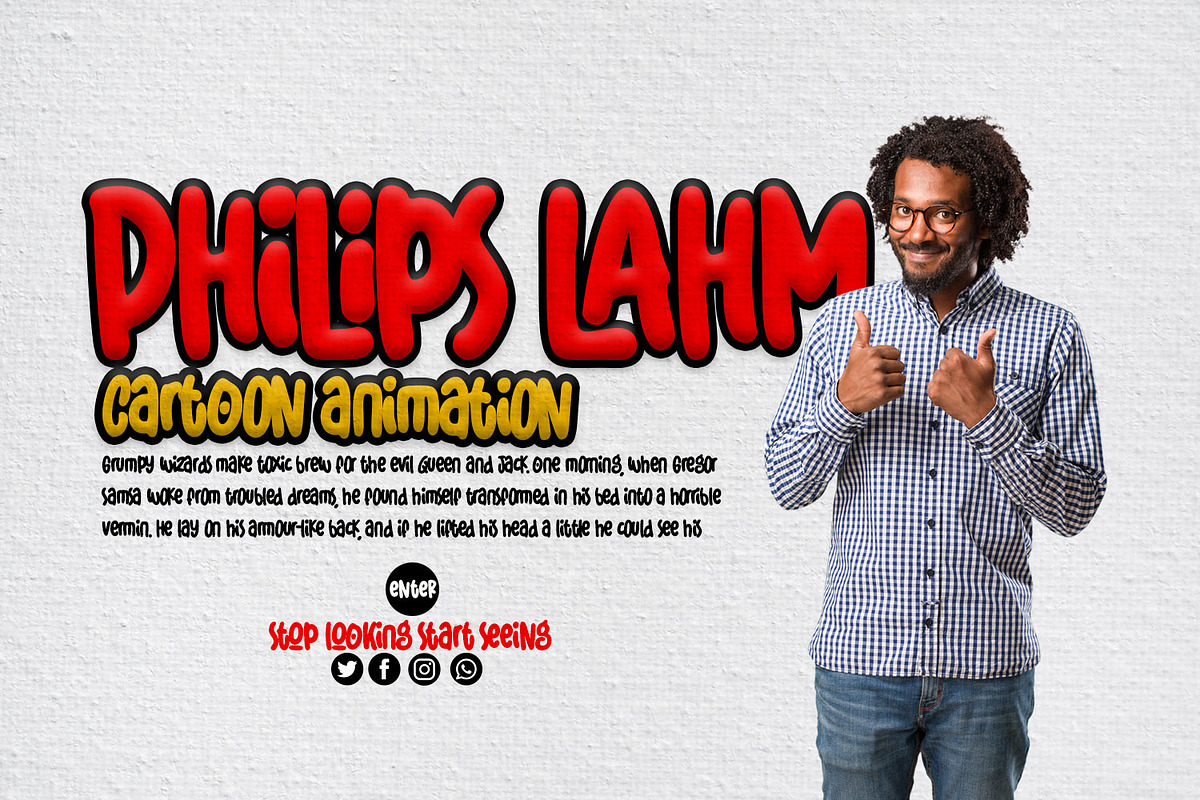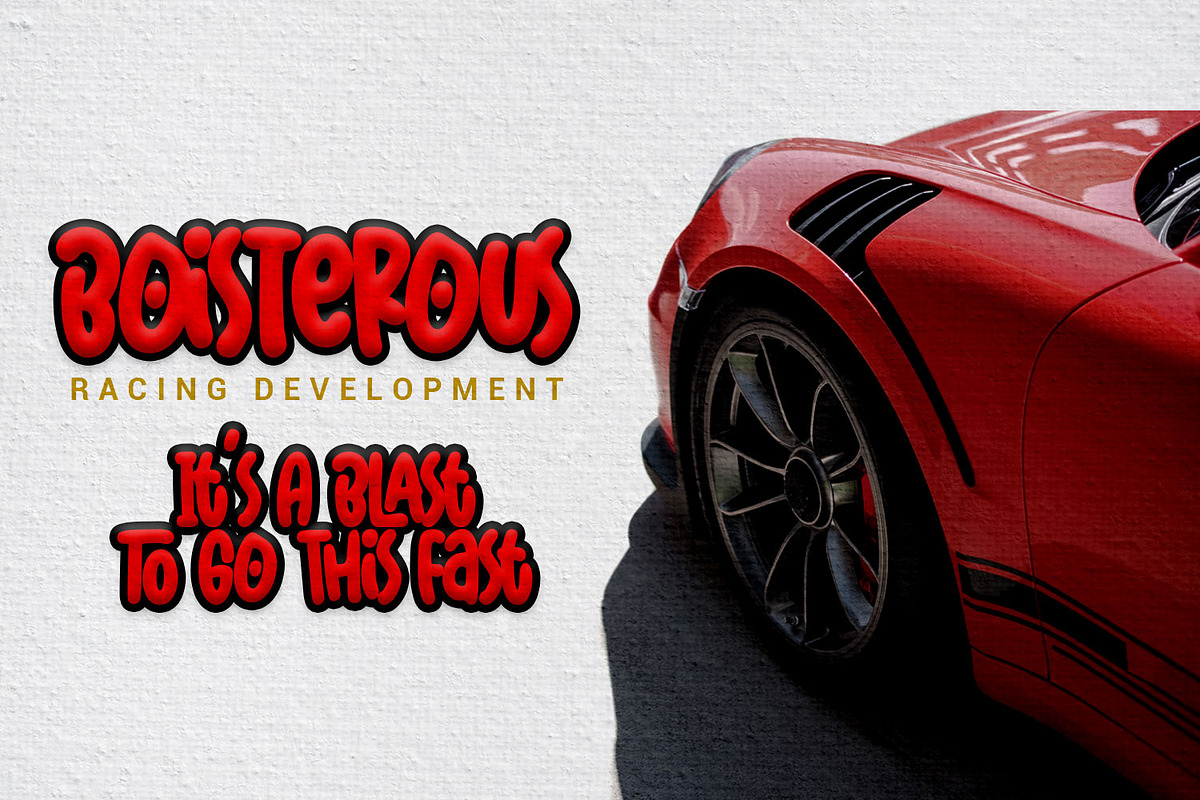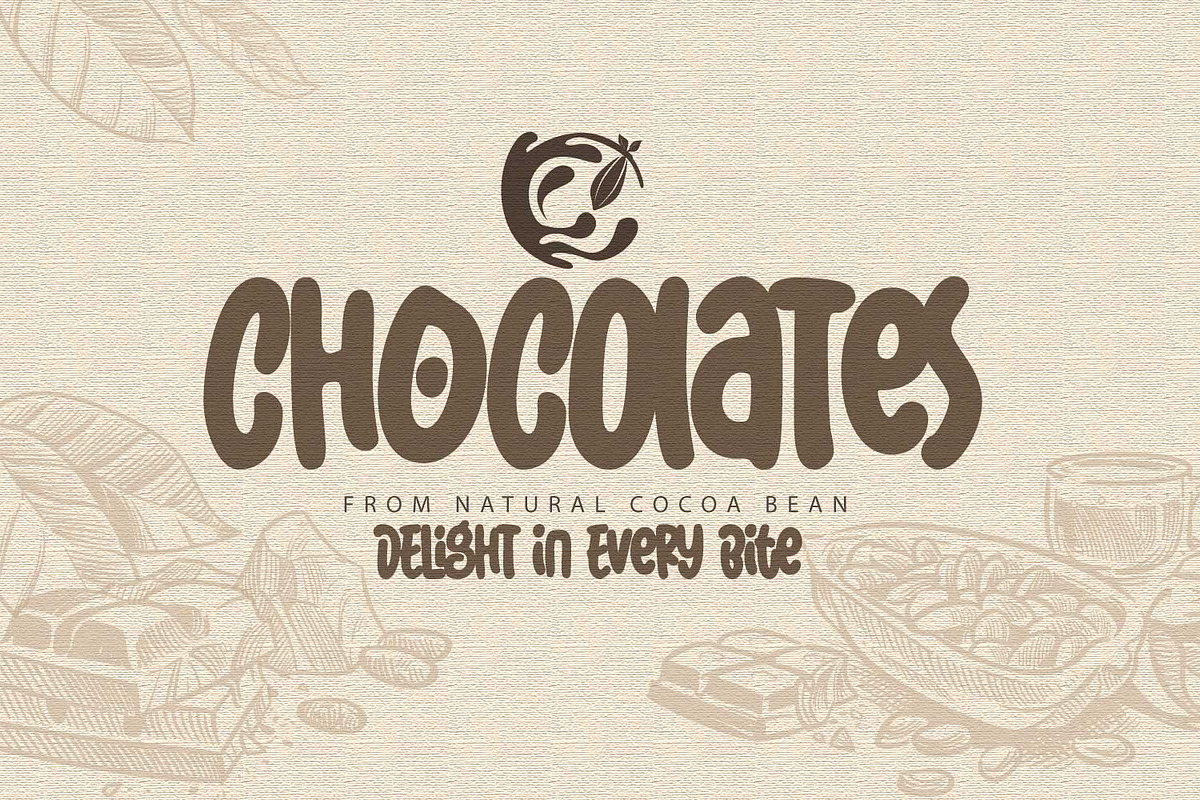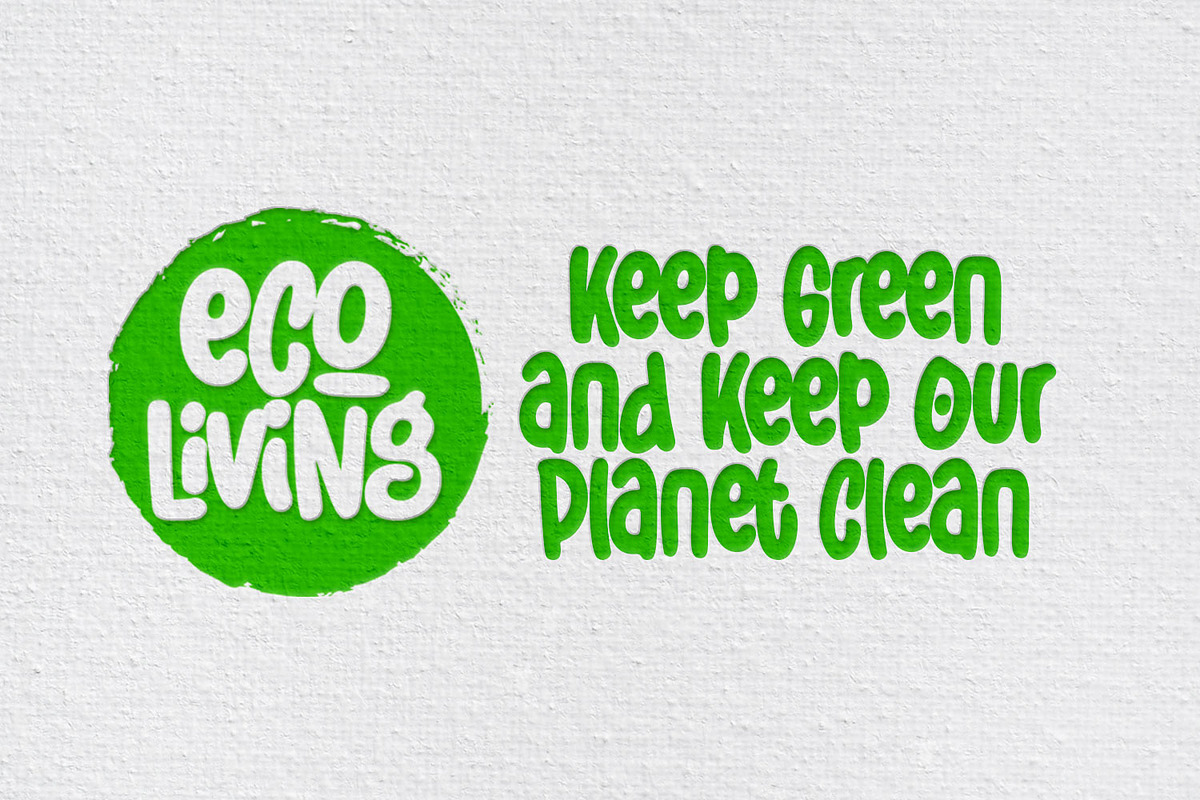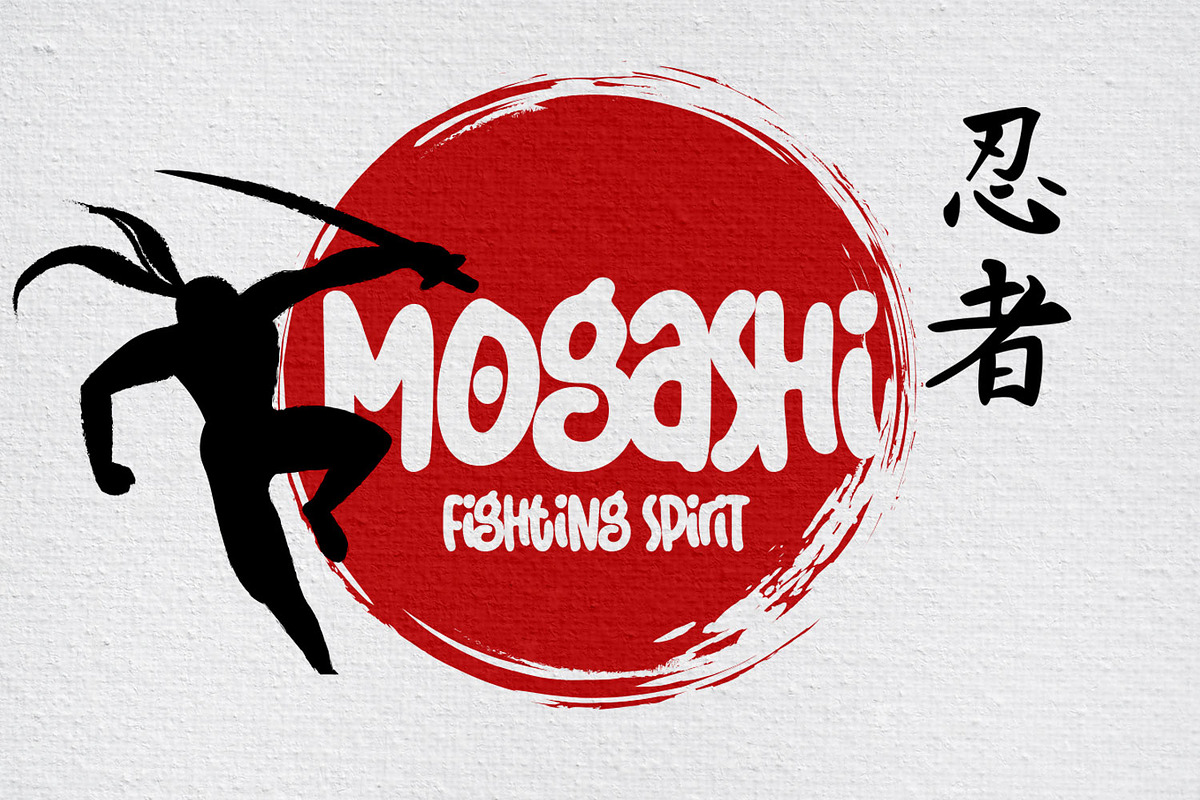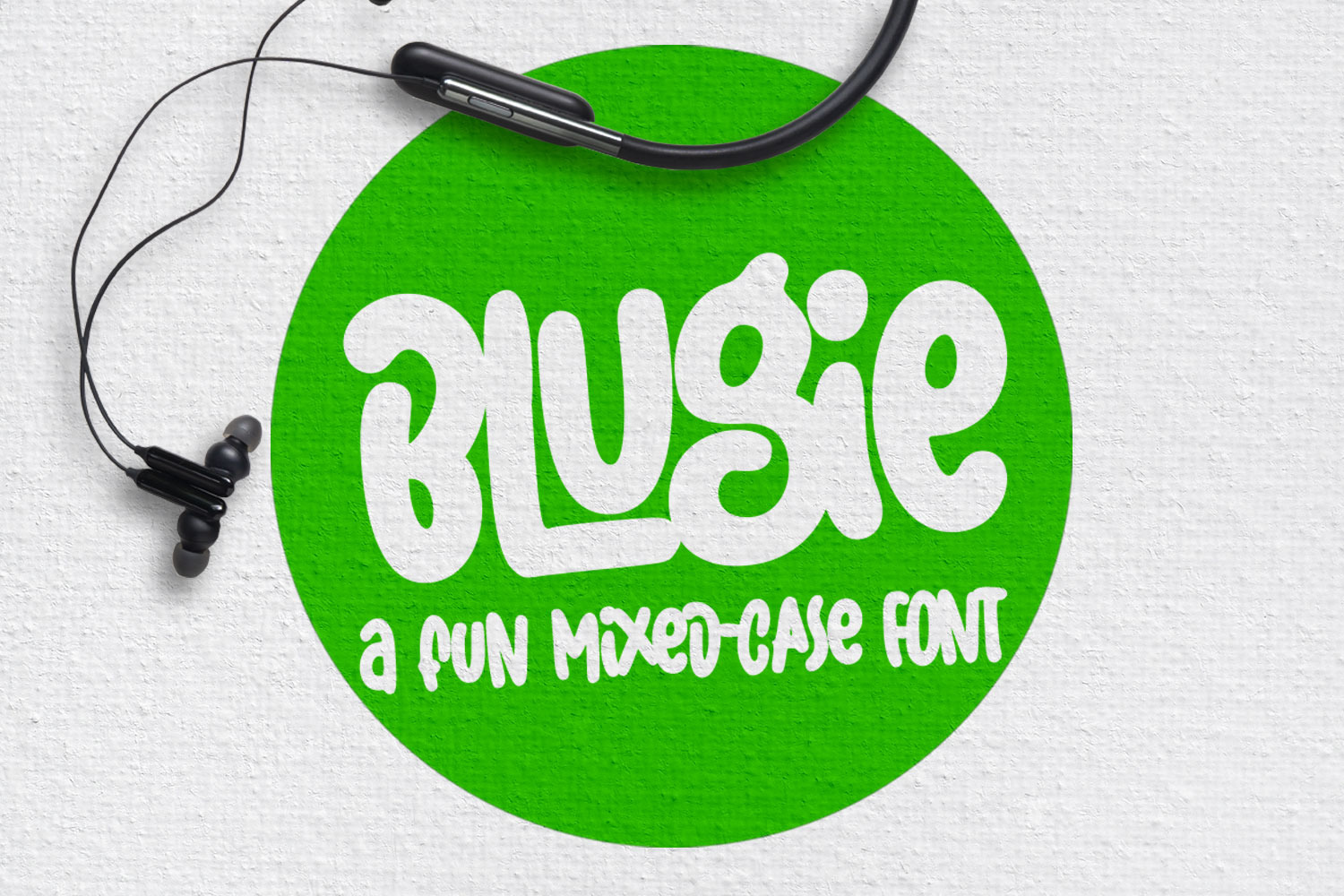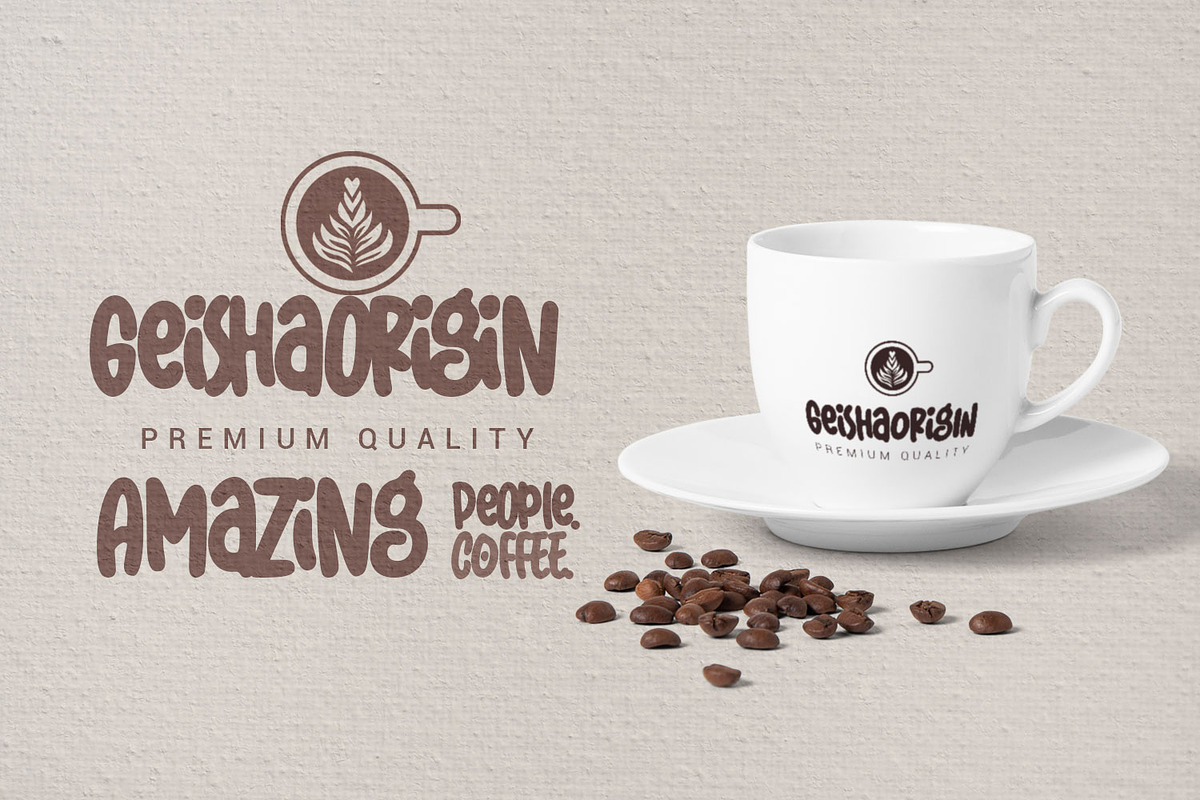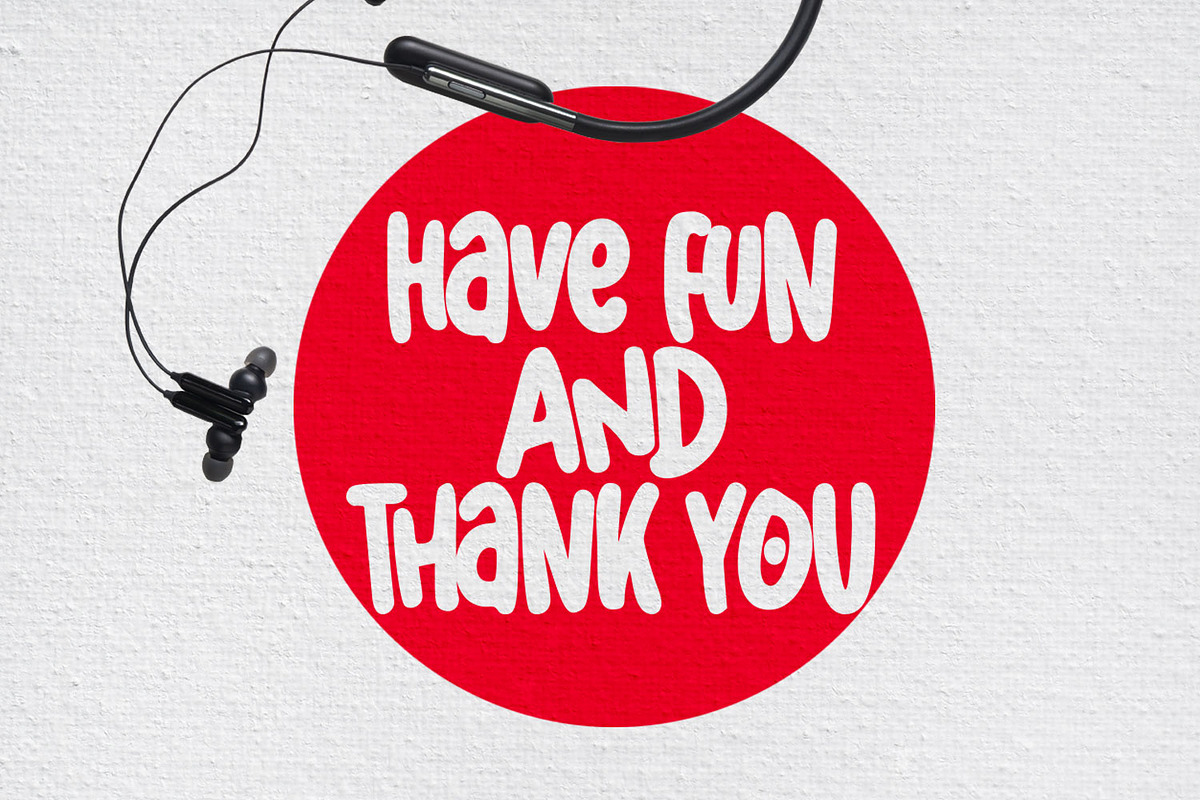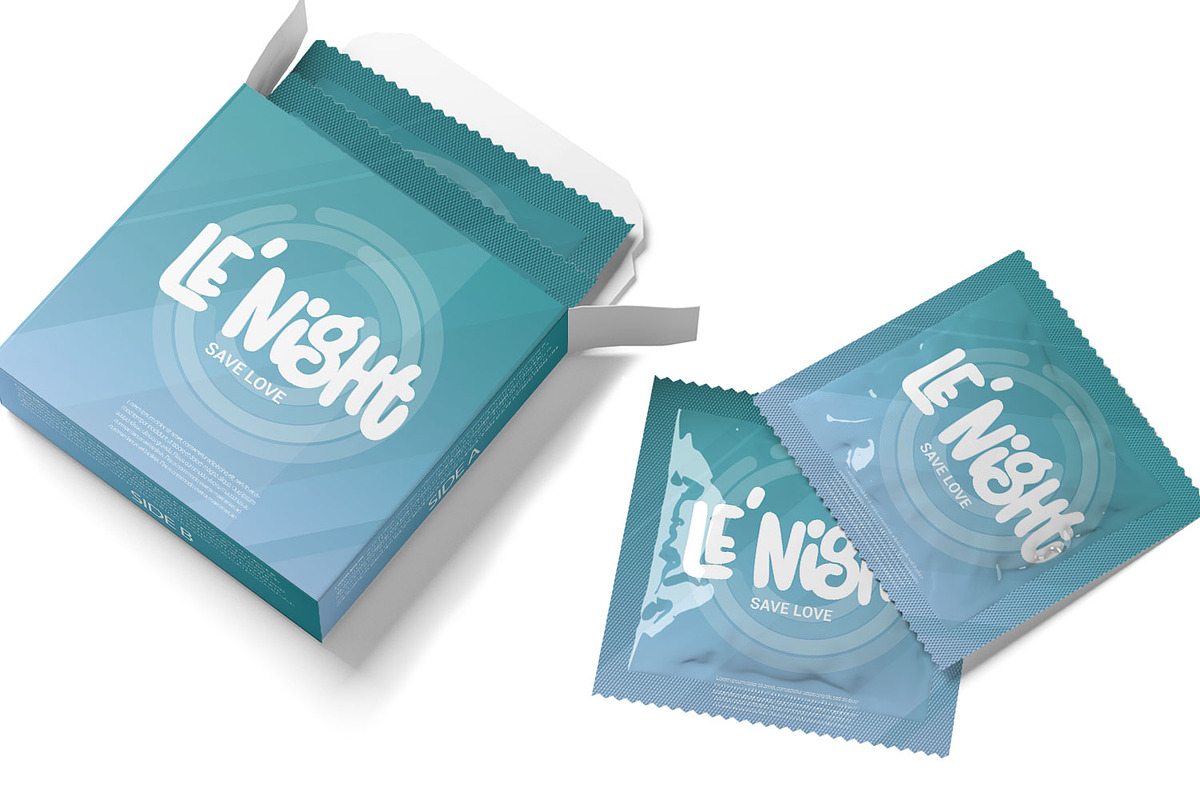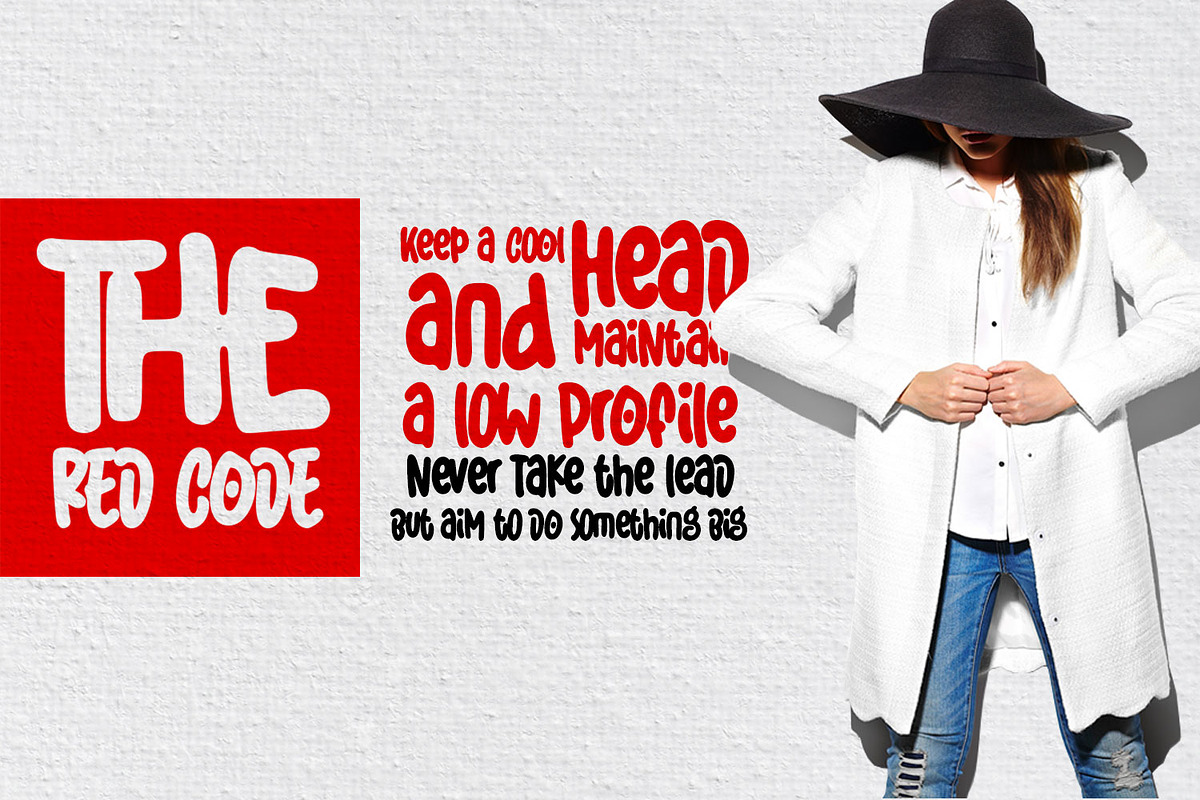
Blugie - Fun Mixed Case Font
Blugie is a tasty new font for all of your fun projects! It’s a mixed-case font (uppercase and lowercase are all the same height) so you can mix and match letters within a word.